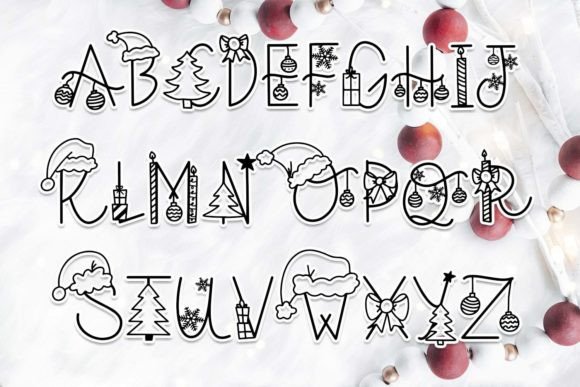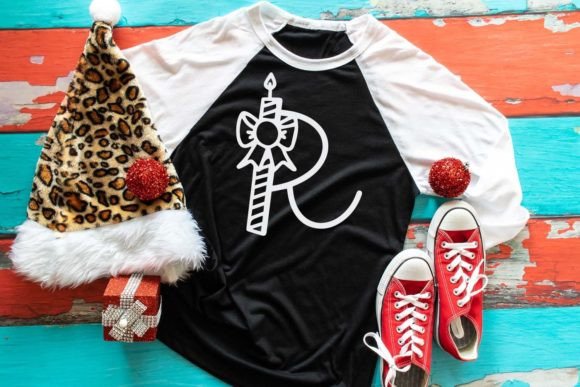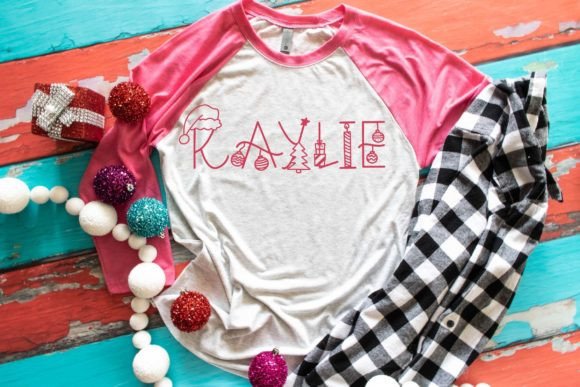
This fun, festive font is a game-changer for designers looking to add a personal touch to their holiday projects. With its playful doodles for each letter, the Holiday Happenings Font is perfect for personalizing clothing, water bottles, notebooks, pillowcases, and more. Whether you’re creating custom gifts or decorating your home, this font is sure to bring a smile to everyone’s face.
Holiday Happenings Font Key Features
- Font Family: Holiday Happenings Font is a unique, custom-designed font family with a festive theme, ideal for holiday-themed projects.
- Character Set: The font family includes a wide range of characters, including uppercase and lowercase letters, numbers, punctuation marks, and holiday-themed icons.
- Unique Characteristics: The font features a distinctive, hand-drawn design with a mix of bold and cursive elements, giving it a unique and festive feel.
Holiday Happenings Font Review
I’ve had the chance to work with “Holiday Happenings Font” and I must say, it’s a fun and playful addition to any holiday-themed project ✨. The font’s script-like design gives it a whimsical feel that’s perfect for Christmas cards, invitations, and social media graphics. The variety of characters and glyphs available also make it a great choice for creating custom holiday-themed content.
Here are some of the things that I think work well with “Holiday Happenings Font” ✨:
- Playful and whimsical design
- Variety of characters and glyphs available
- Perfect for holiday-themed projects
- Great for creating custom content
However, there are some limitations to consider ⚠️:
- The font may not be suitable for formal or professional projects
- The design may be too busy or overwhelming for some users
- The font may not be compatible with all operating systems or devices
Overall, I think “Holiday Happenings Font” is a great choice for anyone looking to add a fun and playful touch to their holiday-themed projects. While it may have some limitations, the benefits far outweigh the drawbacks in my opinion.
The “Holiday Happenings Font” is perfect for:
– Creating festive holiday invitations and cards
– Designing holiday-themed social media graphics and ads
– Adding a touch of holiday cheer to your website or blog
– Creating custom holiday gift tags and wrapping paper
To get the most out of “Holiday Happenings Font”, try pairing it with bold, bright colors and playful illustrations to create a festive and fun atmosphere. You can also experiment with different font sizes and styles to add depth and visual interest to your design.